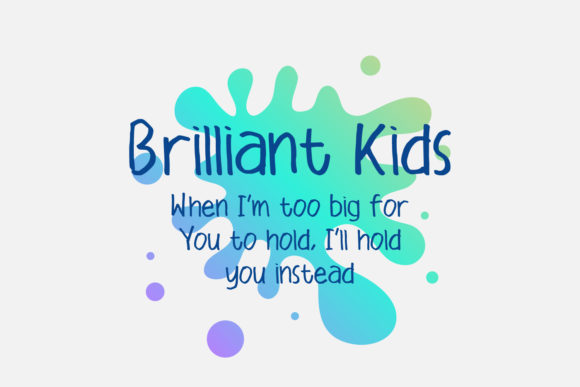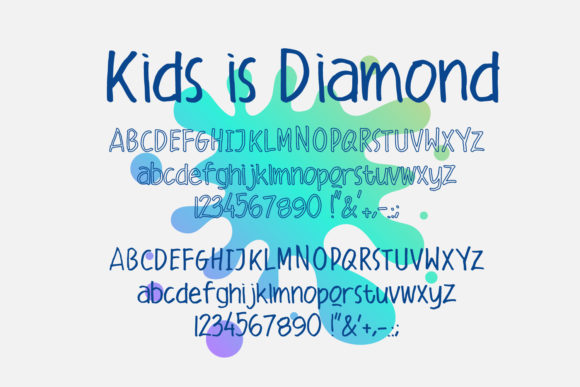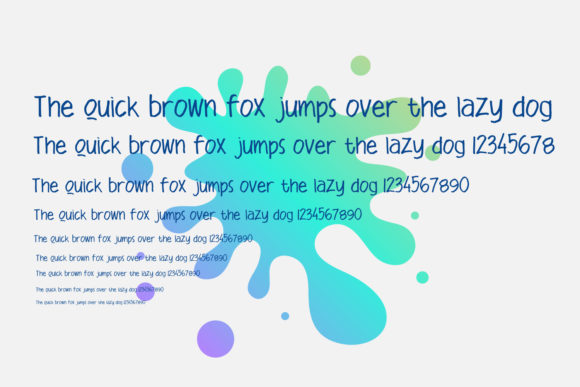
Introduction to Malique Font
Have you ever been working on a creative project, pouring your heart and soul into it, only to feel like something is missing? For designers, finding the perfect font can be the key to unlocking that extra oomph in their work. That’s where the charming Malique Font comes in – a kid-friendly and sweet handwritten font that exudes a touch of elegance.
Imagine being able to add a personal touch to your designs with a font that’s not only visually appealing but also versatile. With its transparent background and high-quality design, the Malique Font is a valuable resource for designers looking to elevate their creative projects. And the best part? It’s available for free download, making it an accessible design resource for anyone looking to add a unique charm to their work.
Key Features of Malique Font
- Unique, modern design perfect for creative projects and presentations.
- High-quality font with a transparent background, ideal for graphic design and digital art.
- Designed as a versatile design resource for various creative applications.
Honest Review: Malique Font
As a designer, I’m always on the lookout for high-quality design resources to elevate my creative projects. Recently, I had the chance to try out the Malique Font, and I must say, it’s a solid addition to my design arsenal.
Here’s what works well: ✨ The font is highly customizable, making it perfect for designers who want to create unique, eye-catching typography. The Malique Font also comes with a transparent background, which makes it easy to use in various design contexts. Plus, it’s available for free download, which is always a bonus.
- High-quality design with a modern aesthetic
- Customizable for a unique look
- Transparent background for easy use
However, I did encounter a few limitations: ⚠️ The font is only available in a few weights, which might limit its use in certain design projects. Additionally, the character set could be more extensive, which might be a drawback for designers who need to use non-English characters.
Overall, I’m impressed with the Malique Font. While it’s not perfect, its high quality and customizability make it a valuable design resource for creative projects. With a bit more development, I’d consider it a top-notch choice for designers.
Getting the Most Out of Malique Font
For optimal results, use Malique Font with a transparent background to create a seamless design. Experiment with different font sizes and colors to achieve the desired effect. Malique Font is a versatile design resource that can be used in a variety of creative projects.
Common Use Cases for Malique Font
Malique Font is commonly used in graphic design, branding, and digital marketing. Its high-quality design and transparent background feature make it ideal for creating eye-catching logos, graphics, and overlays.